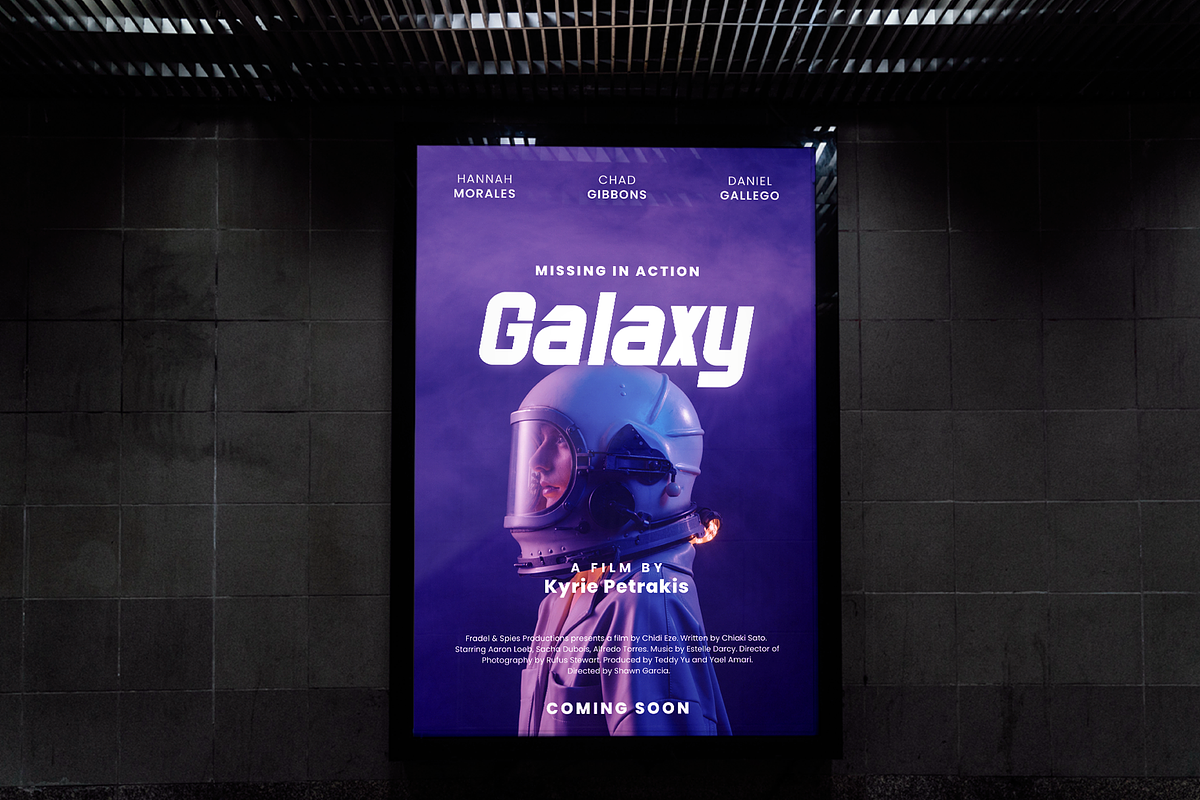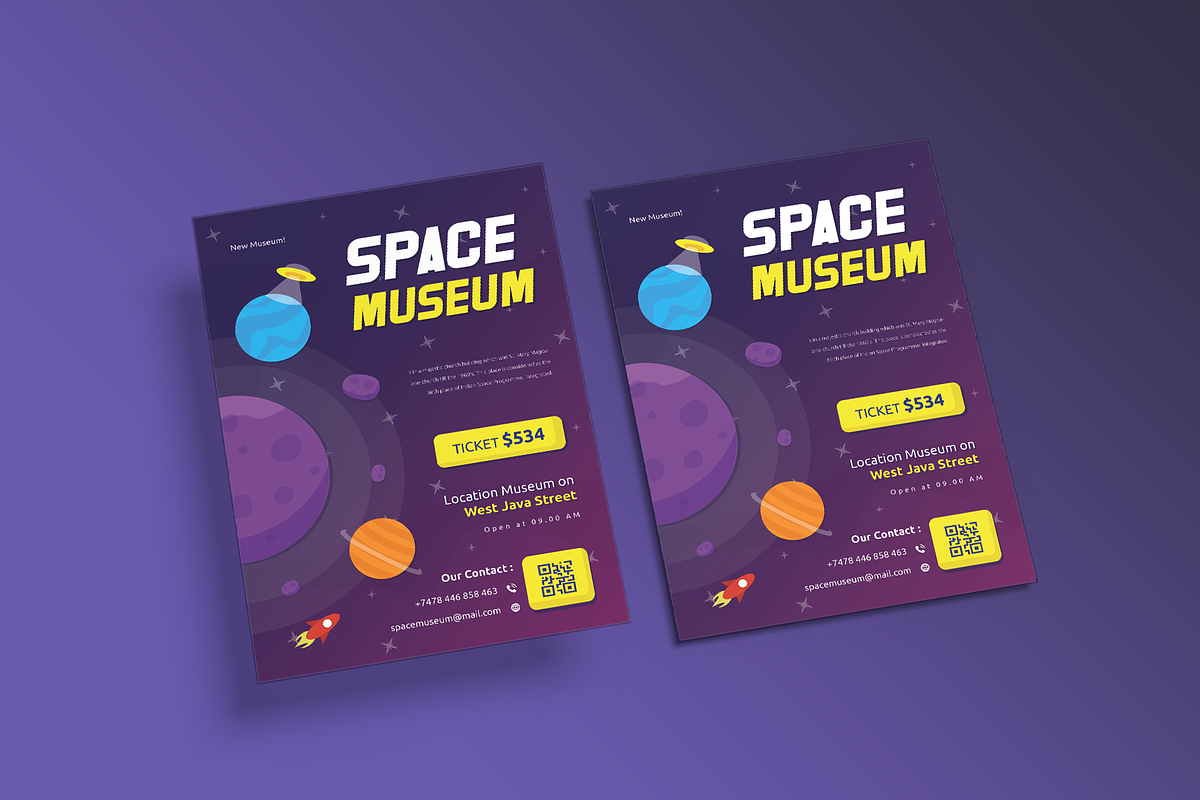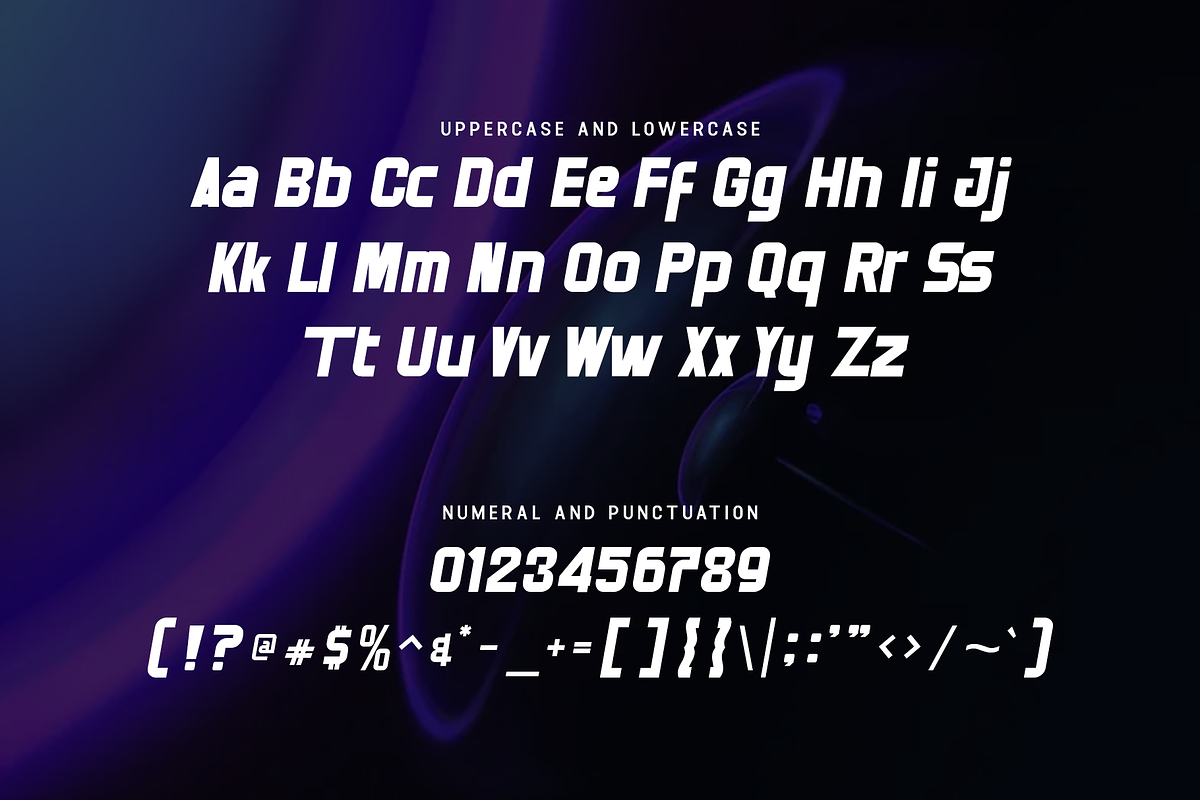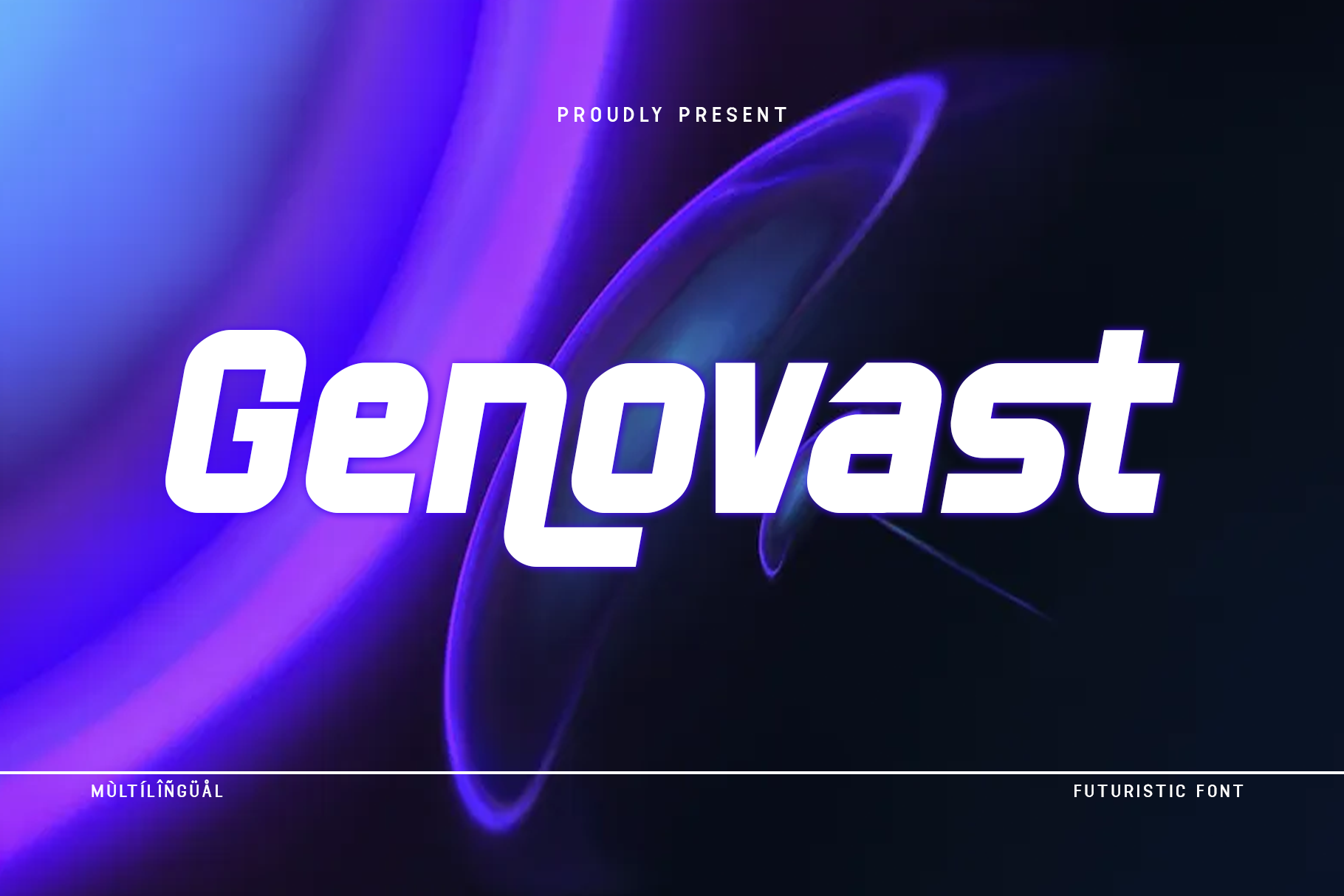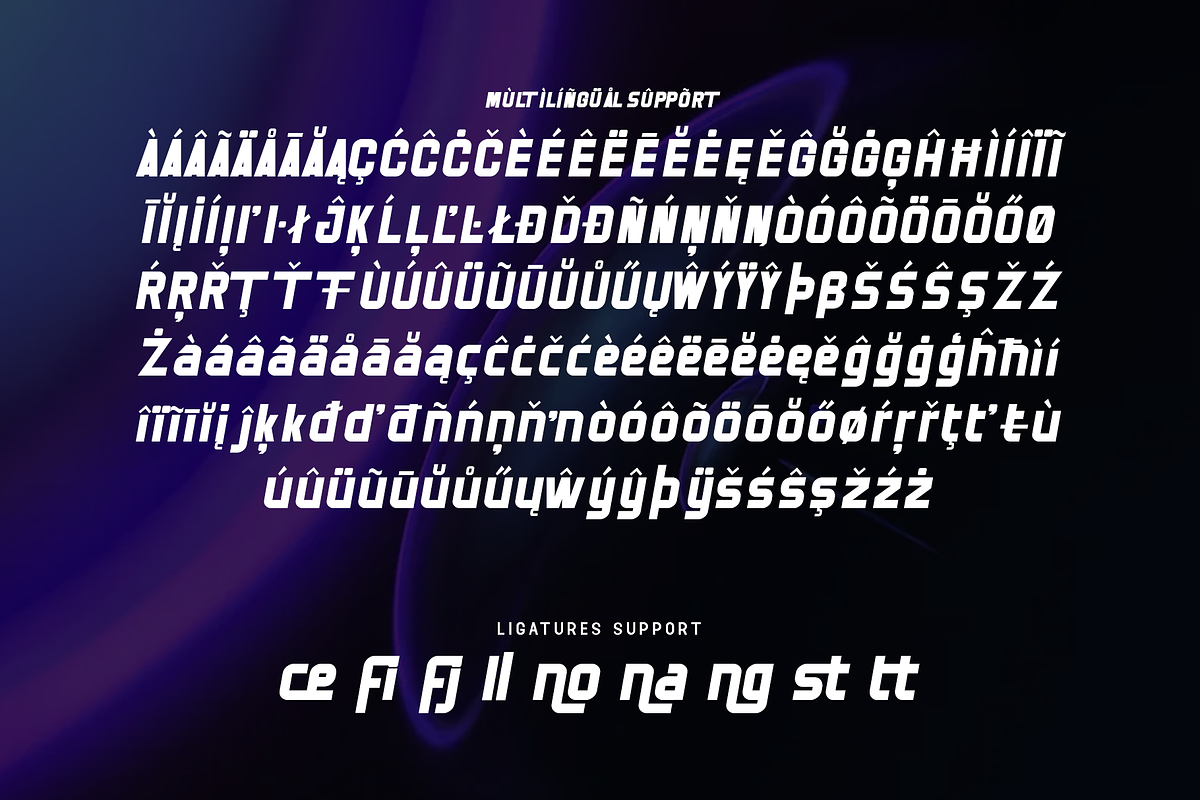
Genovast - Futuristic Font
Unleash the power of the future in your design projects with "Genovast," a cutting-edge futuristic font designed to bring a sleek, high-tech aesthetic to your work. Perfect for technology brands, sci-fi themes, digital products, and innovative startups, "Genovast" offers a bold and modern look that commands attention.
"Genovast" features a complete set of uppercase and lowercase letters, numerals, punctuation, and a variety of ligatures and stylistic alternates. Its geometric shapes and sharp angles are designed to create a dynamic and forward-thinking impression, making it ideal for futuristic posters, game interfaces, movie titles, and tech-related branding.
This typeface is meticulously crafted for both print and digital applications, ensuring excellent readability and visual impact across different media. It supports multiple languages, making it versatile for global use. Each character is carefully kerned and spaced to deliver a professional and polished finish.
Embrace the future with "Genovast" and give your projects the modern, innovative edge they deserve. "Genovast" is the ultimate font choice for designers looking to push boundaries and explore new horizons.